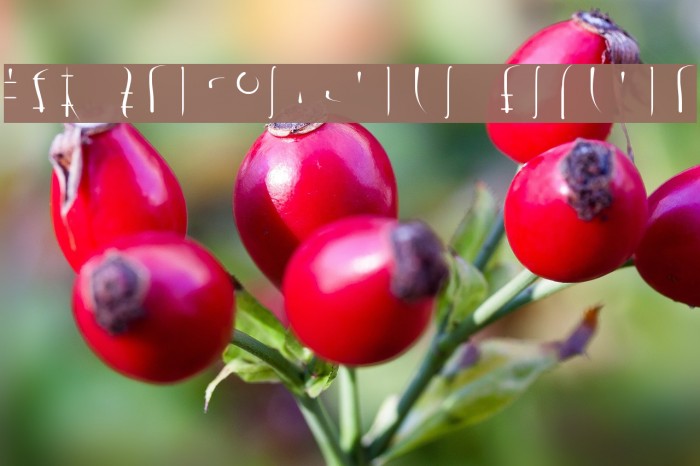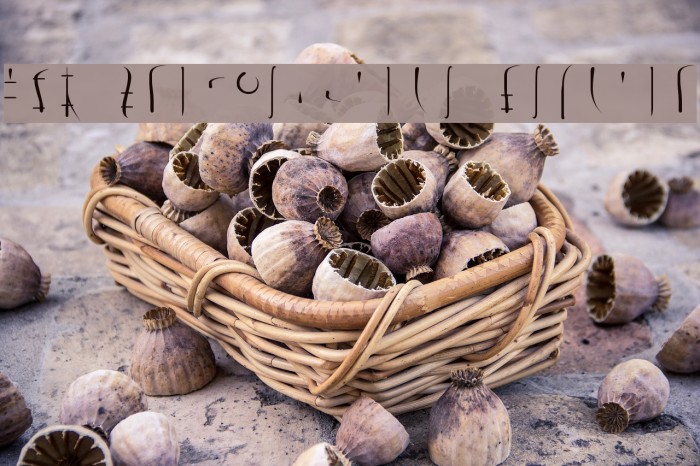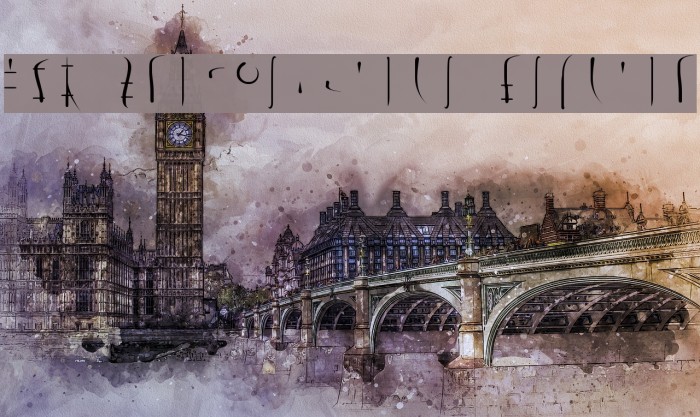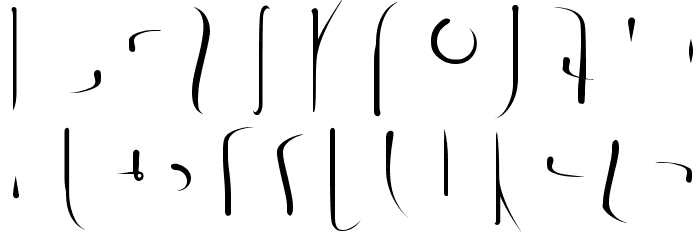
LSW Drachenklaue Regular Font
LSW Drachenklaue Regular Description
This font exhibits a unique and artistic style, characterized by its elongated and flowing strokes that resemble calligraphic brushwork. The letters have a distinct, almost mystical appearance, with sharp, claw-like extensions that give it a dramatic flair. The overall design is highly decorative, with an emphasis on verticality and fluidity, making it stand out as a statement piece. The characters are intricately designed, with varying stroke widths that add a dynamic and lively feel to the text. This font is not only visually striking but also conveys a sense of elegance and sophistication, suitable for creative and artistic projects.
An artistic, calligraphic font with elongated, claw-like strokes and a mystical appearance from Uncategorized fonts.
- Proposed Projects: Ideal for fantasy book covers, artistic posters, branding for creative industries, and decorative invitations.
- Use Case: Logos, Headlines, Artistic projects